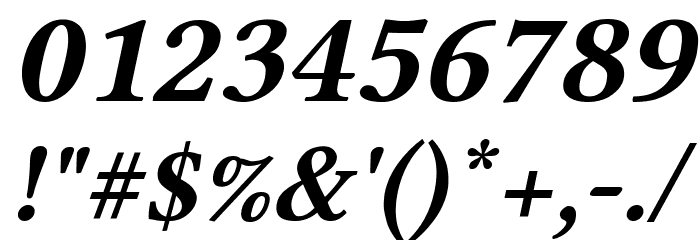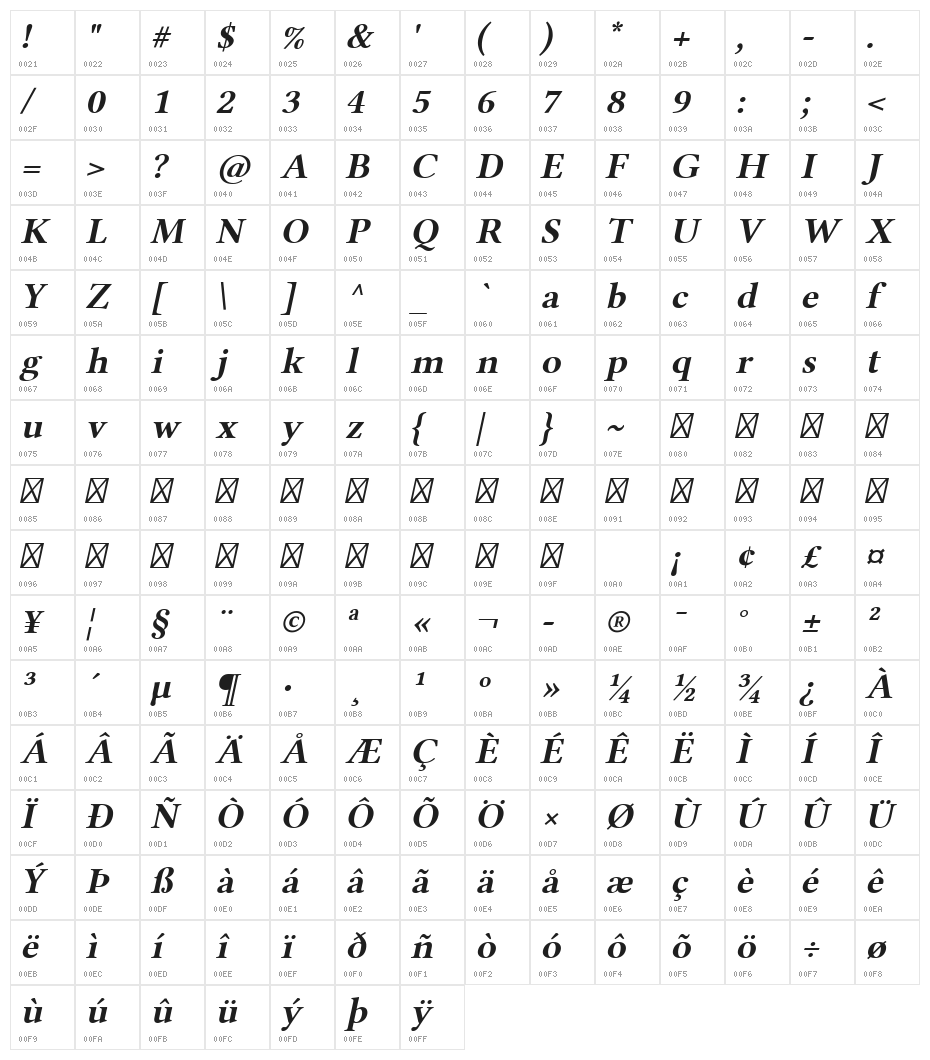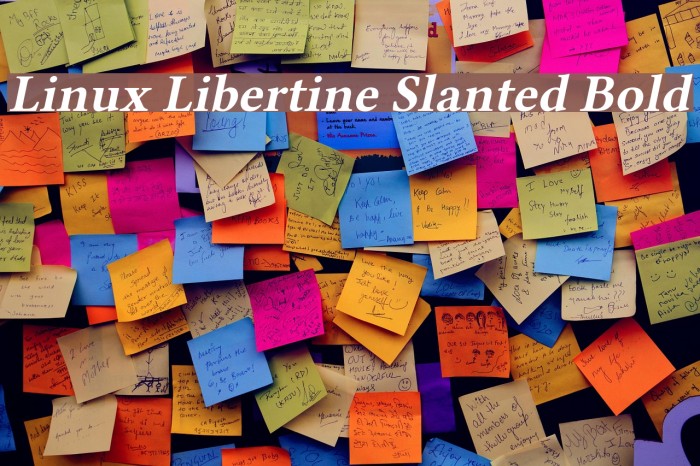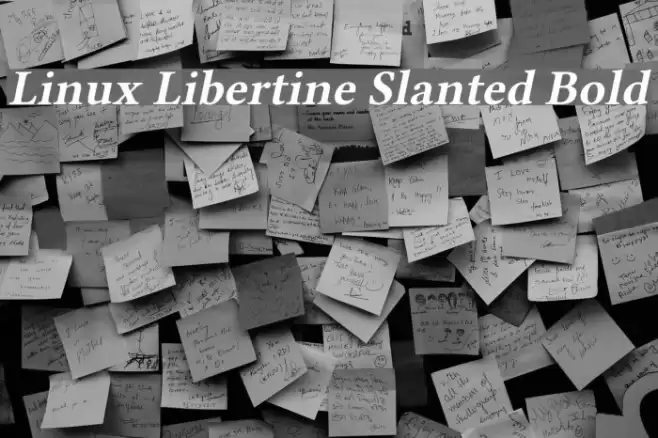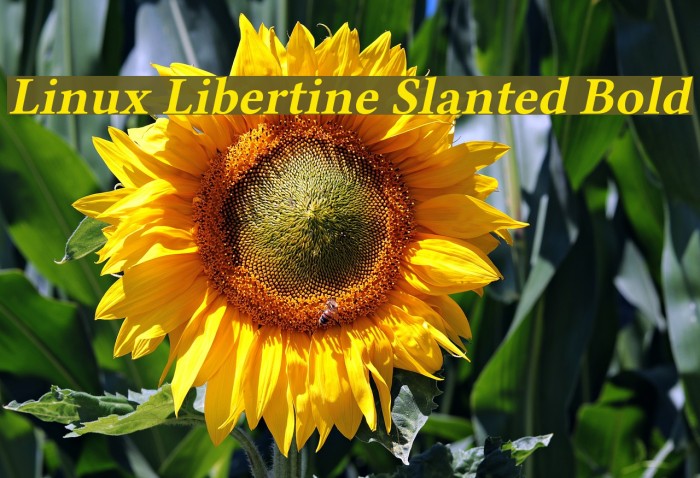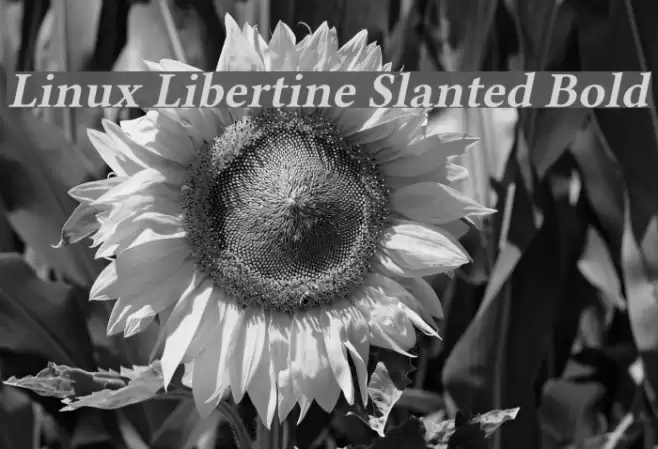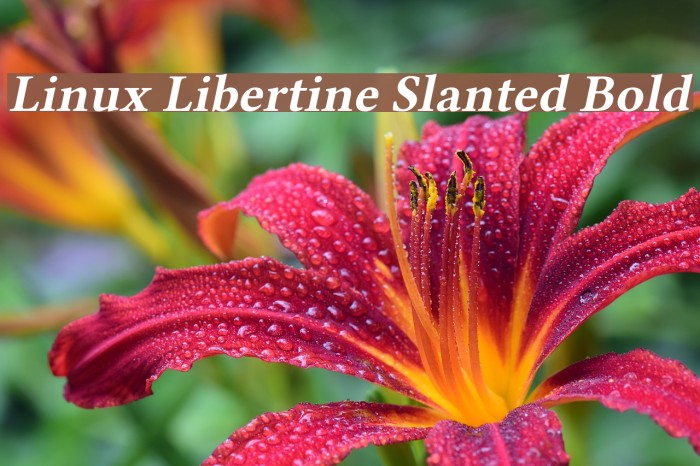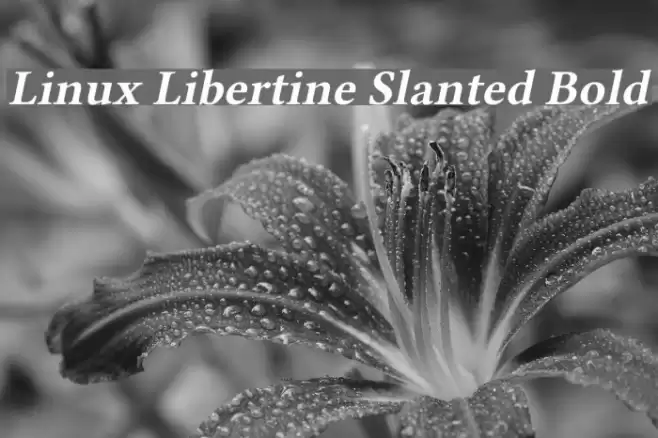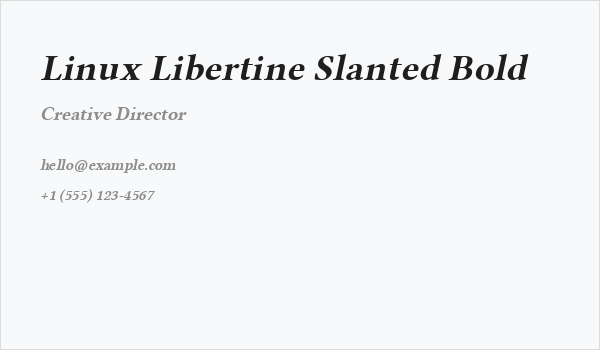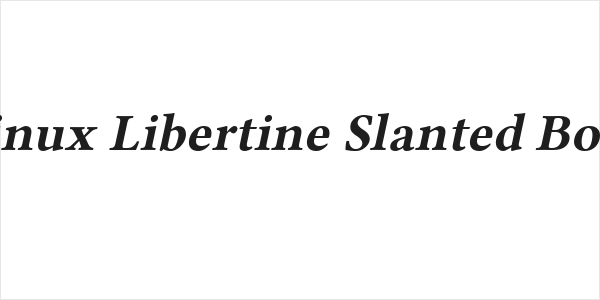
Linux Libertine Slanted Bold Font
Linux Libertine Slanted Bold Description
This font exhibits a classic serif style with a distinct slant, giving it an italicized appearance. The bold weight enhances its presence, making it suitable for impactful text. The characters are well-defined with moderate contrast between thick and thin strokes, contributing to its readability. The serifs are pronounced, adding a touch of elegance and traditional appeal. The spacing between characters is normal, ensuring clarity and legibility across various sizes. This font's style is versatile, fitting both modern and classic design contexts.
| Use Case | Headlines, Logos, Editorial |
| Proposed Projects | Ideal for book covers, formal invitations, editorial headlines, and branding materials. |